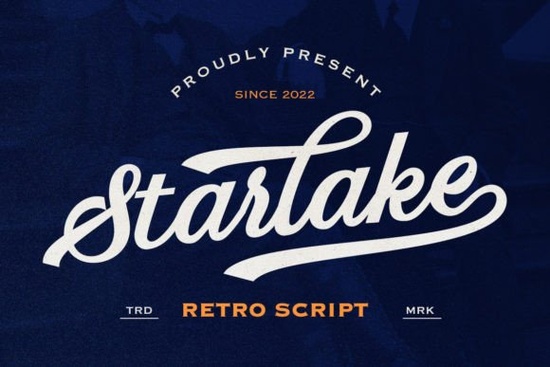
If you're working on a design that needs a little vintage charm think 70s diner signs, retro band tees, or nostalgic packaging you’ve probably scrolled through dozens of script fonts looking for the right one. Starlake - Retro Script Font stands out because it blends authentic retro flair with modern flexibility. It’s not just another decorative typeface; it’s built with practicality in mind for real-world projects like logos, apparel, and merchandise.
What makes Starlake special is its thoughtful details. Each letter includes alternate characters, so your words don’t look repetitive or robotic. The ending swashes add that classic retro touch without overwhelming your layout. And if you’re designing for an international audience, you’ll appreciate its multilingual support it covers a wide range of Latin-based languages, which is rare for stylized scripts.
If you run a small business selling custom mugs, t-shirts, or stickers, Starlake gives your products instant personality. Print-on-demand creators will find it especially handy because it holds up well at both large and small sizes whether it’s on a poster or a product label. Crafters using Cricut or Silhouette machines can layer it with other elements without losing legibility. And designers building brand identities for cafes, music acts, or vintage-inspired boutiques will love how it adds warmth without looking dated.
Unlike some overly ornate scripts that are hard to read or pair, Starlake balances style and function. You can use it as a headline font alongside clean sans-serifs (like Helvetica or Montserrat) for contrast, or let it shine solo on a minimalist tee design.
Not all retro scripts offer the same level of versatility. For example, if you liked the playful bounce of Dating Month, you might enjoy Starlake’s more grounded, mid-century vibe. Or if you’ve used Artistic Signature for elegant branding, Starlake offers a grittier, more energetic alternative. Fans of quirky styles like Strawberry Smoothie or structured looks like Roflag Stencil will find Starlake sits comfortably between casual and professional ideal when you want character without chaos.
- Don’t overdo the swashes. Use them selectively on the last letter of a word or phrase to keep your design clean.
- Test readability at small sizes. While Starlake works well down to about 18pt, avoid using it for body text or fine print.
- Pair it wisely. A neutral sans-serif or a subtle serif creates balance. Avoid pairing it with another script unless you’re going for intentional contrast.
- Use kerning. Retro scripts often need manual letter spacing adjustments to look natural don’t rely on default tracking.
Whether you’re refreshing a logo, launching a new merch line, or adding flair to a personal craft project, Starlake delivers retro style without sacrificing usability. And if you’re already browsing Creative Fabrica for script fonts, don’t miss the full collection including Starlake’s dedicated category page to see how it fits into your broader toolkit.